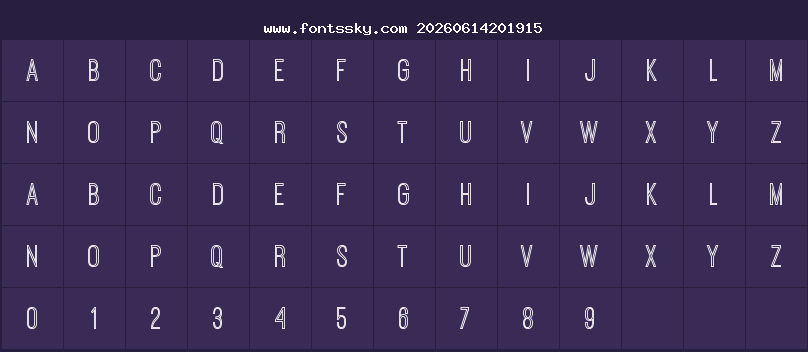
Ostrich Sans Inline Preview
• Font Name: Ostrich Sans Inline
• Designer: Tyler Finck
About Ostrich Sans Inline.ttf
Ostrich Sans Inline.ttf is a modern, elegant sans-serif font designed for ultimate readability and visual harmony. Perfect for branding, headlines, web design, and print materials.